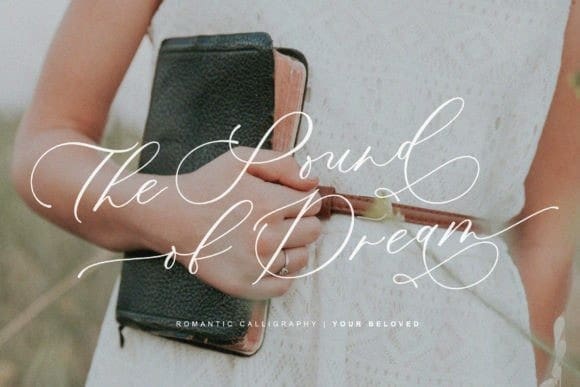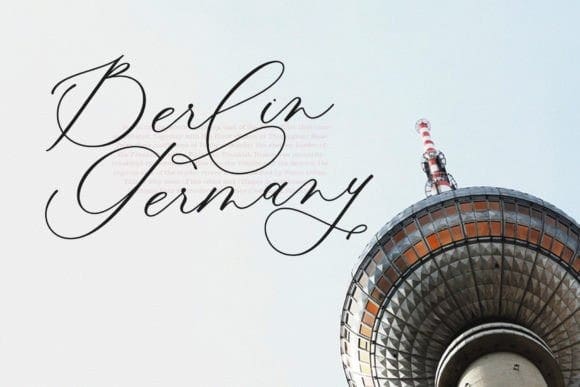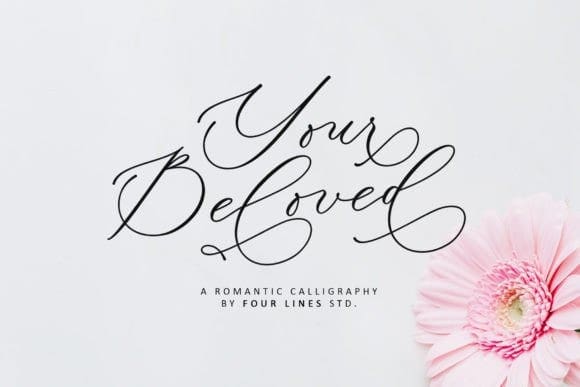
Your Beloved Font
Your Beloved Font is a lovely and Romantic calligraphy font with a natural style. It is the best choice for creating eye-catching logos, watermarks on photography, branding, and quotes. Every letter has a unique and beautiful touch, which will make your design come alive!